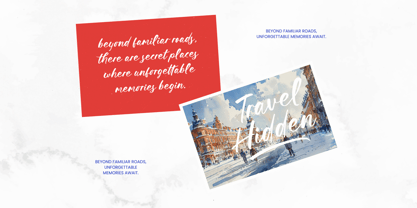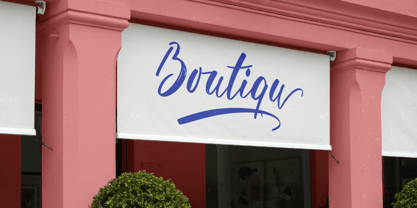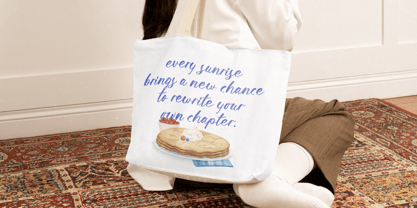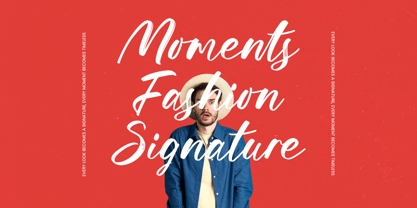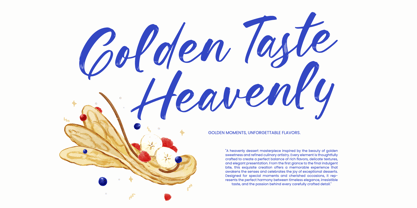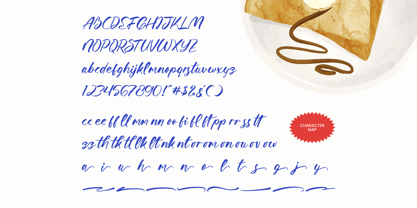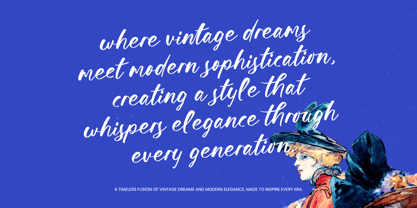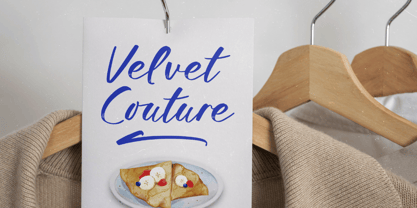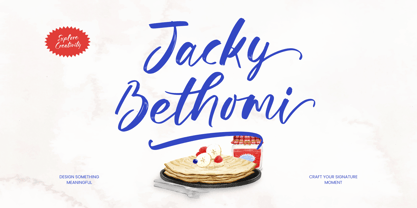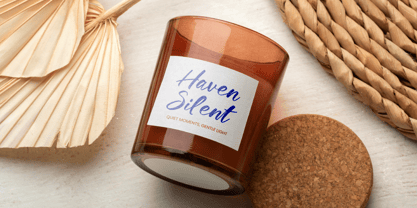
Jacky Bethomi
Experience the soulful rhythm of Jacky Bethomi, a vibrant brush script designed to bring an authentic, handcrafted warmth to your creative projects. This typeface captures the spontaneous energy of a painter's hand, offering a personal touch that resonates with audiences looking for genuine human connection.
Inspired by the indulgent atmosphere of artisanal bakeries and golden culinary moments, the visual flow of this font evokes a sense of heavenly taste and sophisticated comfort. Every stroke is meticulously crafted to mimic the organic texture of ink on paper, blending traditional artistry with a contemporary aesthetic.